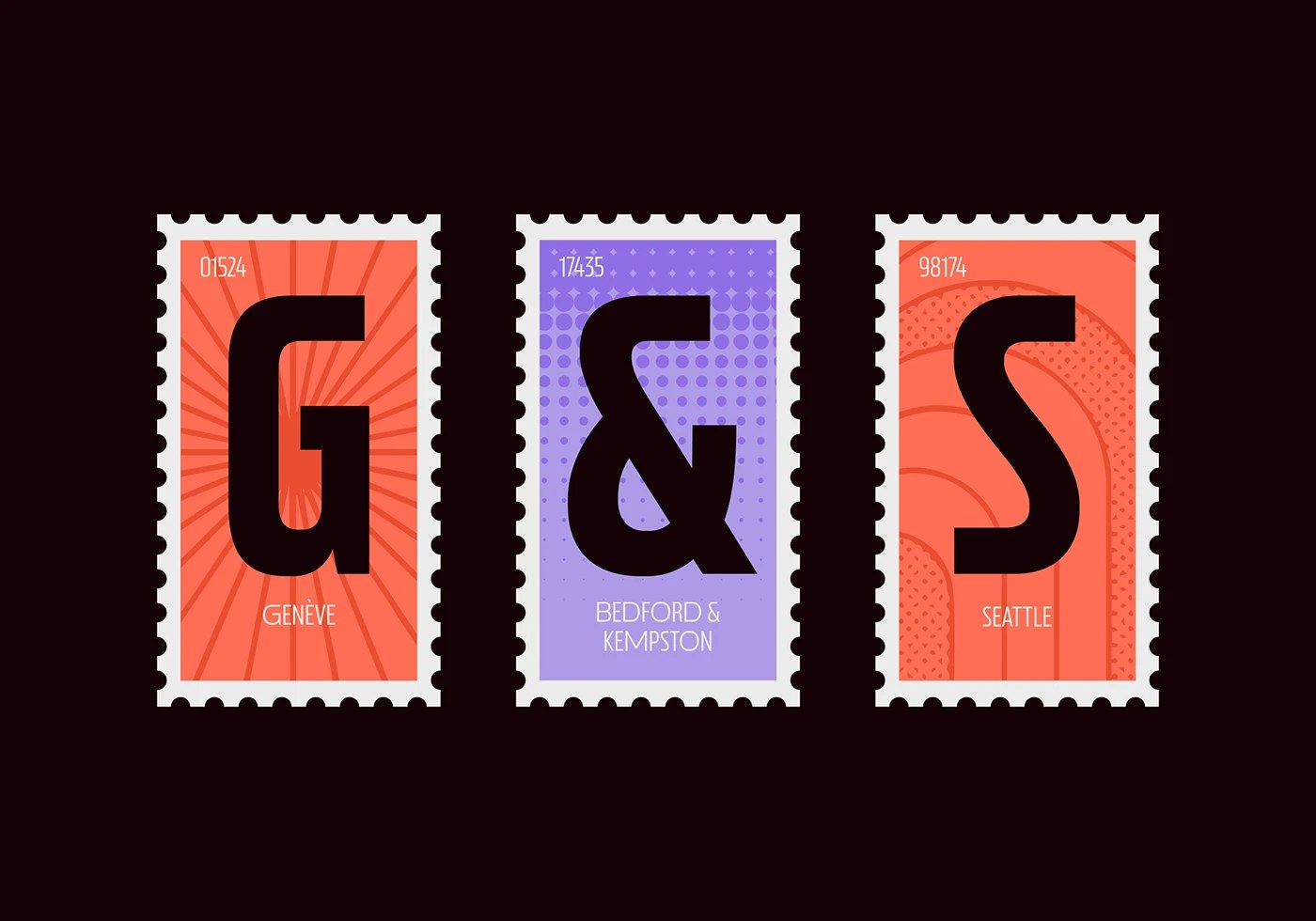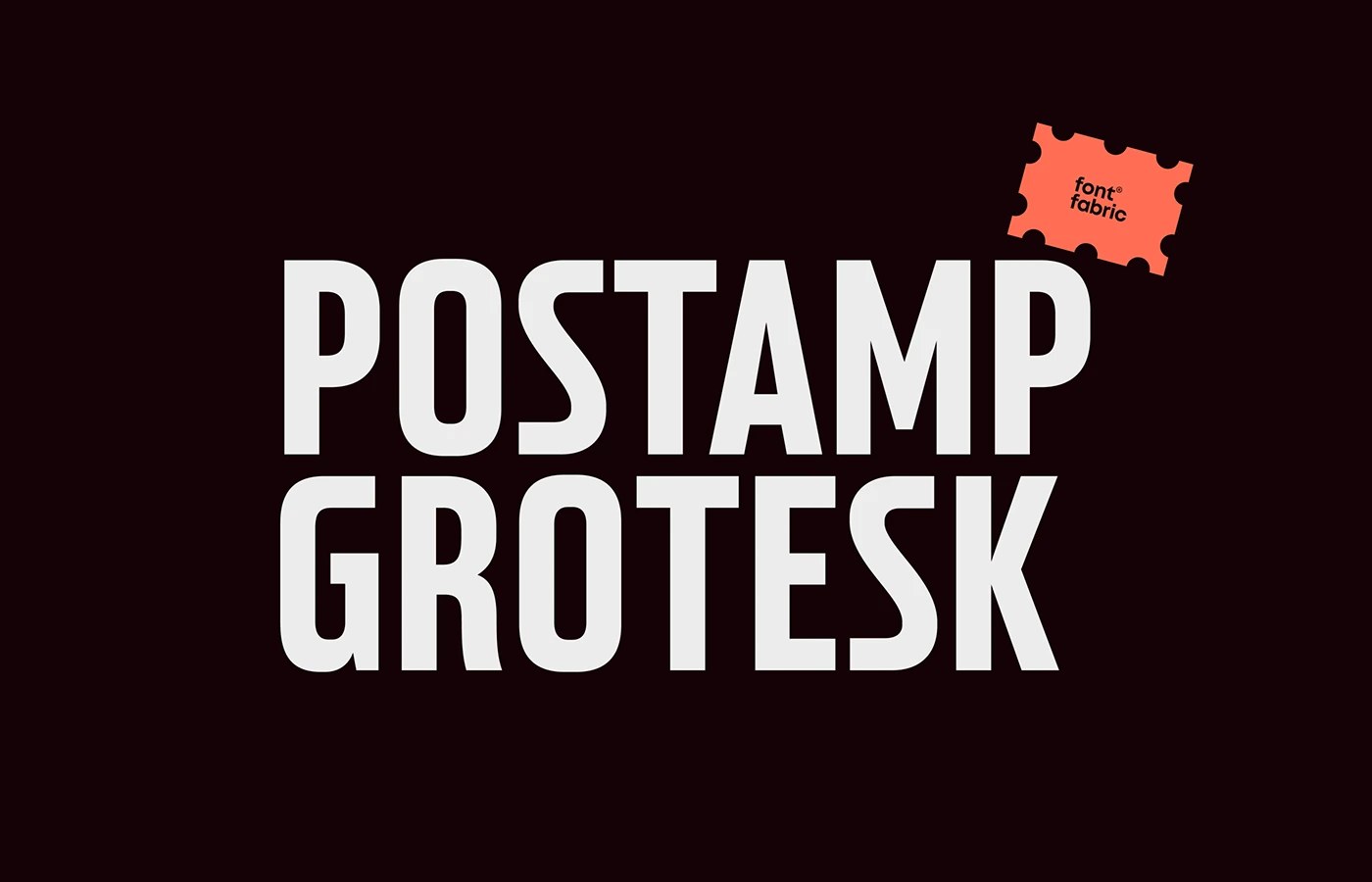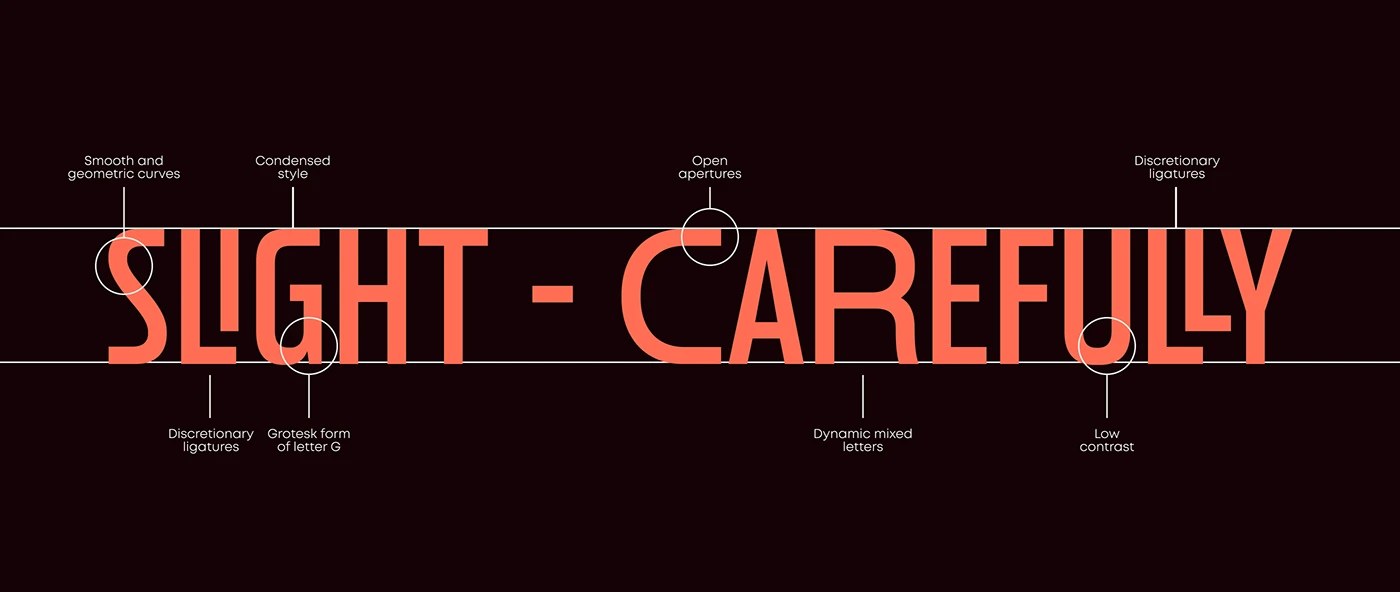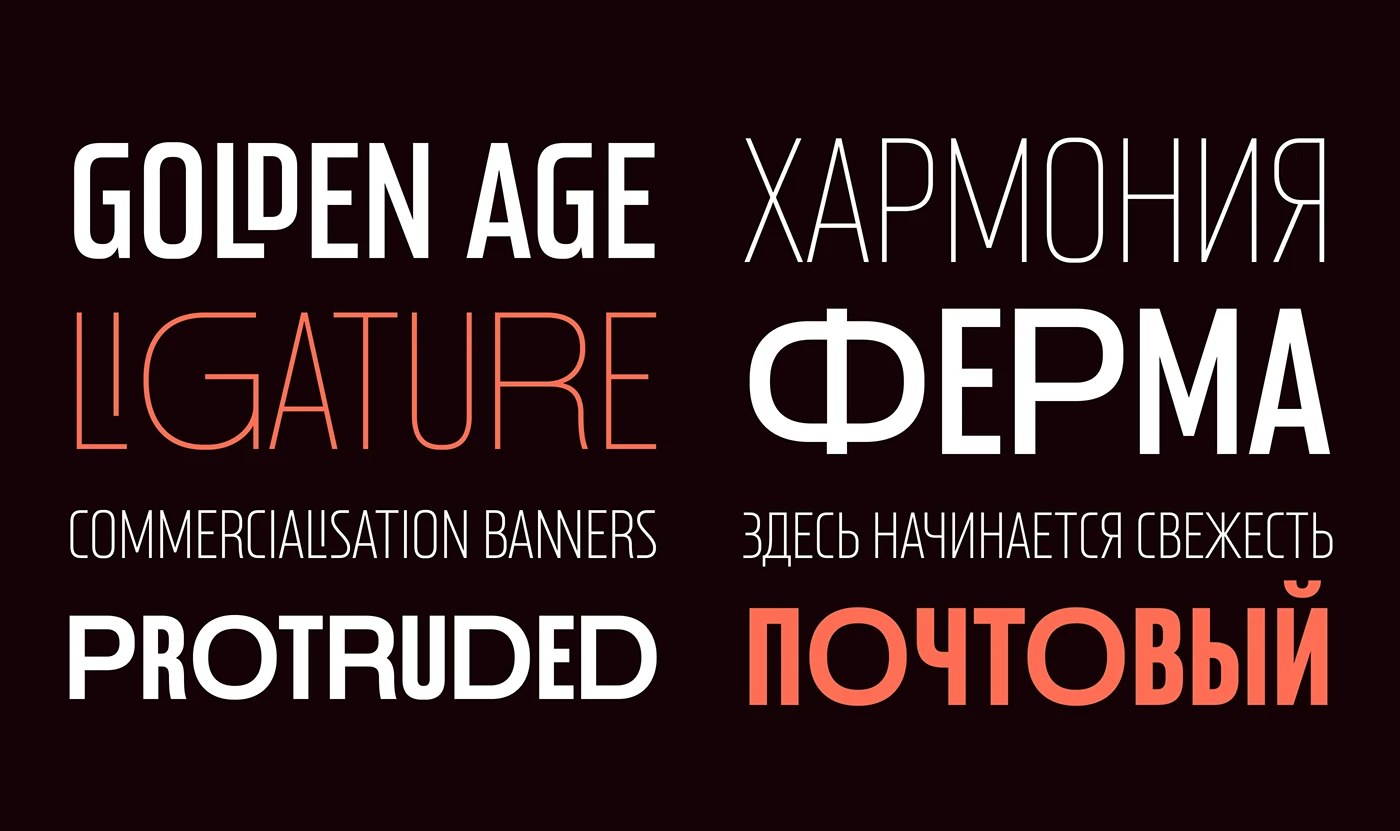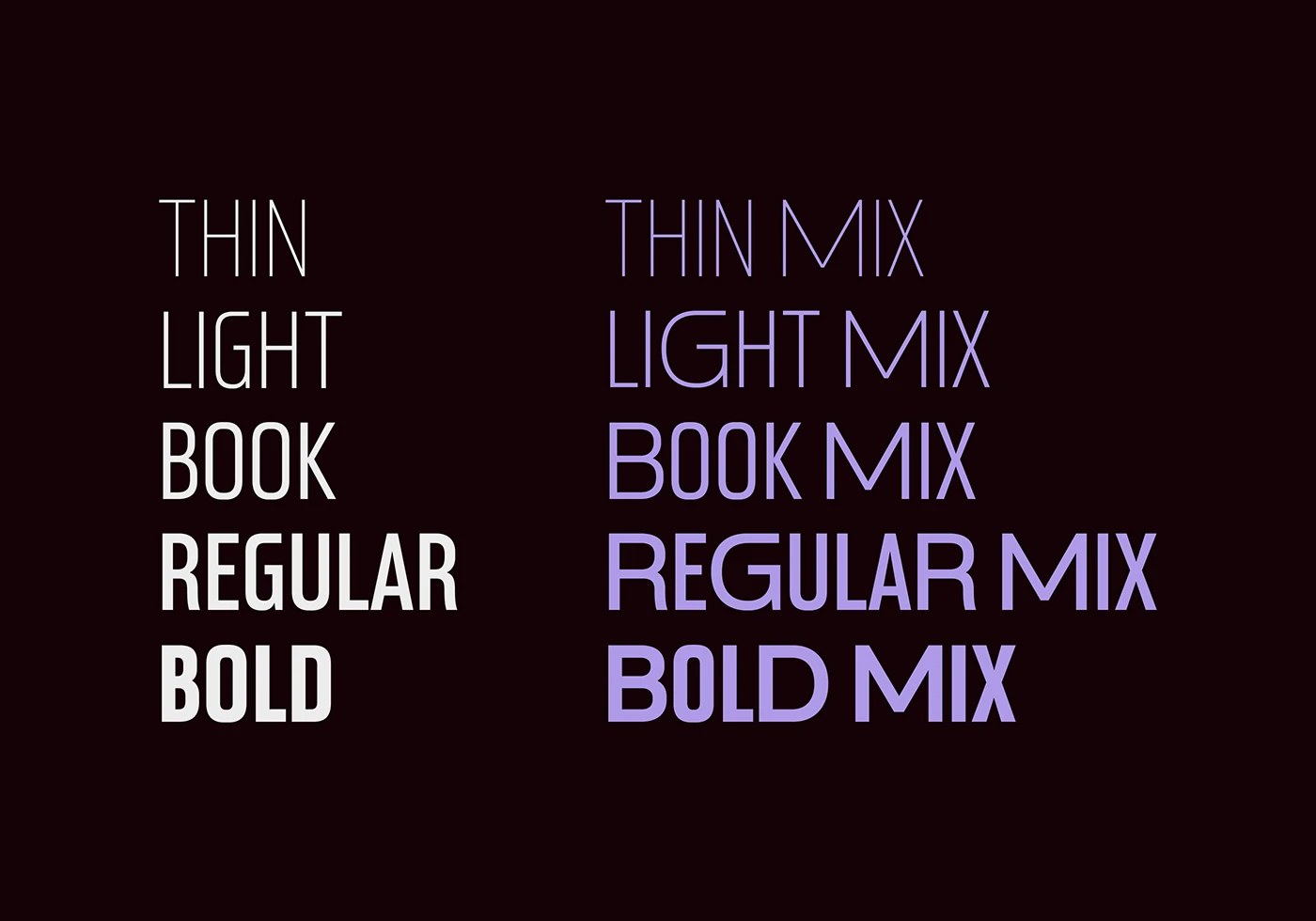
Postamp Grotesk: A Condensed Sans Serif Typeface by Fontfabric
Postamp Grotesk is a condensed sans serif typeface by Fontfabric, derived from U.S. postage stamp letterforms across five weights with Cyrillic supports.
The starting point was a James Buchanan postage stamp — one of the stranger places to mine for type forms. Fontfabric's five-person team, led by Ivelina Martinova, spent time with late 19th-century American specimens before settling on what makes this condensed sans serif typeface distinctive: open apertures, smooth geometric curves, and a low-contrast stroke that reads at display scale without the fussiness of historical revival work. The weight staircase runs Thin through Bold, each presented in stamp-frame compositions on near-black — single letters at scale, coral and lavender fills on outer and center frames respectively, perforations intact on all four edges. The specimen is the argument: the forms hold even when isolated at that kind of size.
Condensed Sans Serif Typeface Built From Historical Stamp Typography
The Mix variant adds Cyrillic alongside the Latin set, and the annotated structural diagrams make explicit what the design is doing — six callout circles label the grotesk G form, the discretionary ligatures, the dynamic mixed letters. Fontfabric does not leave the rationale implicit. For this condensed sans serif typeface, the five-weight range gives it genuine range across editorial, branding, and signage contexts. The Mix variant does not feel like an afterthought — Cyrillic and Latin share the same proportional logic. That consistency is what makes a condensed sans serif typeface built from archival letterforms still feel like a contemporary tool.